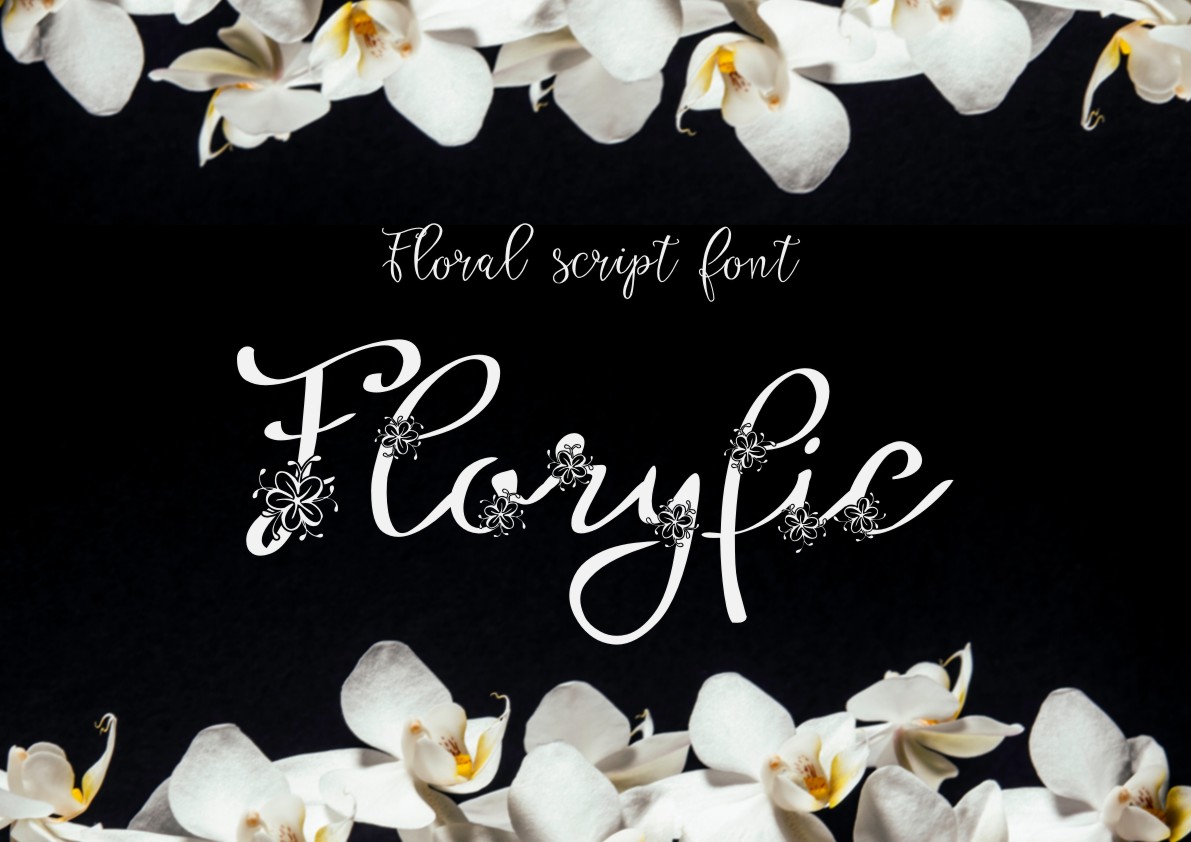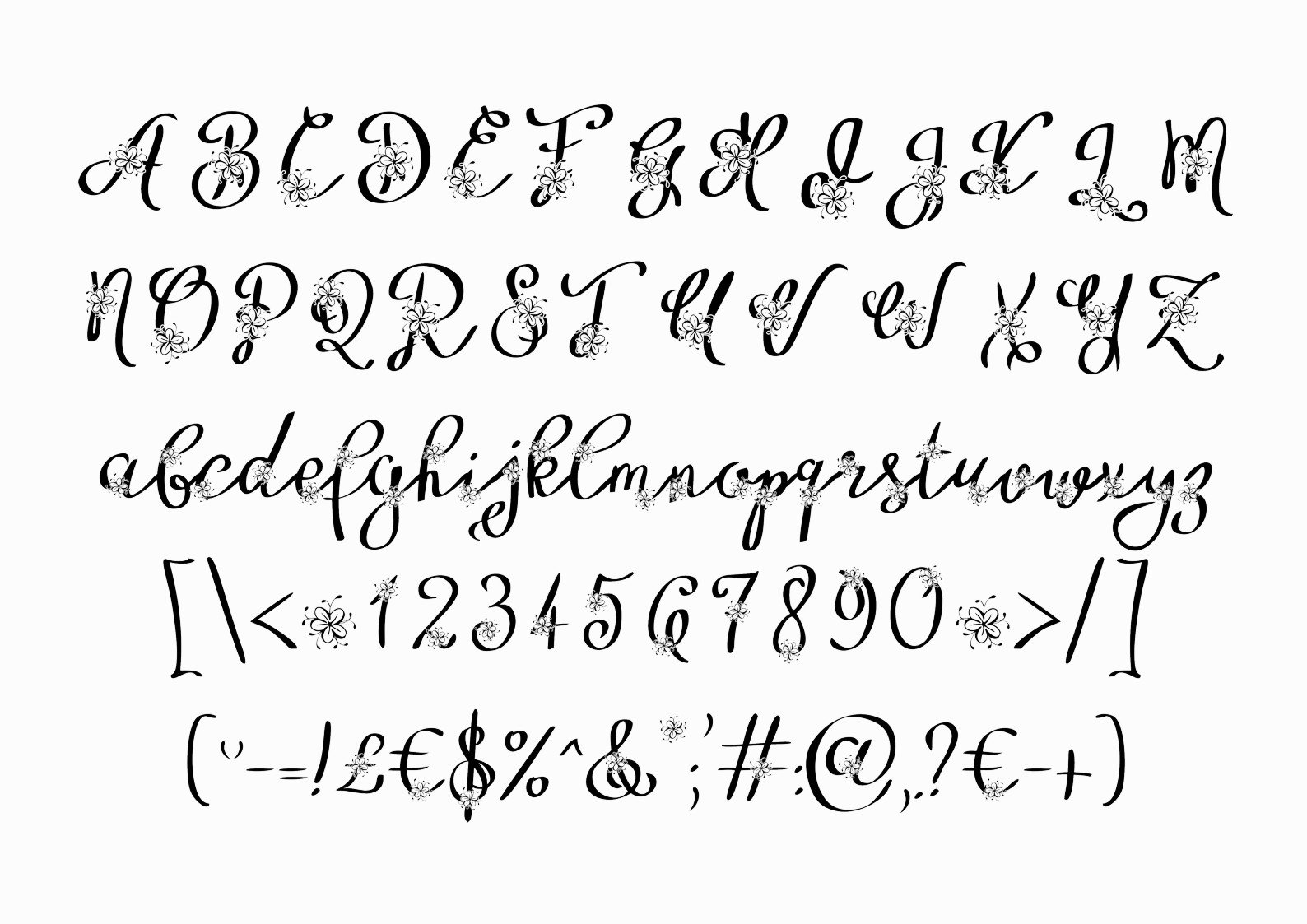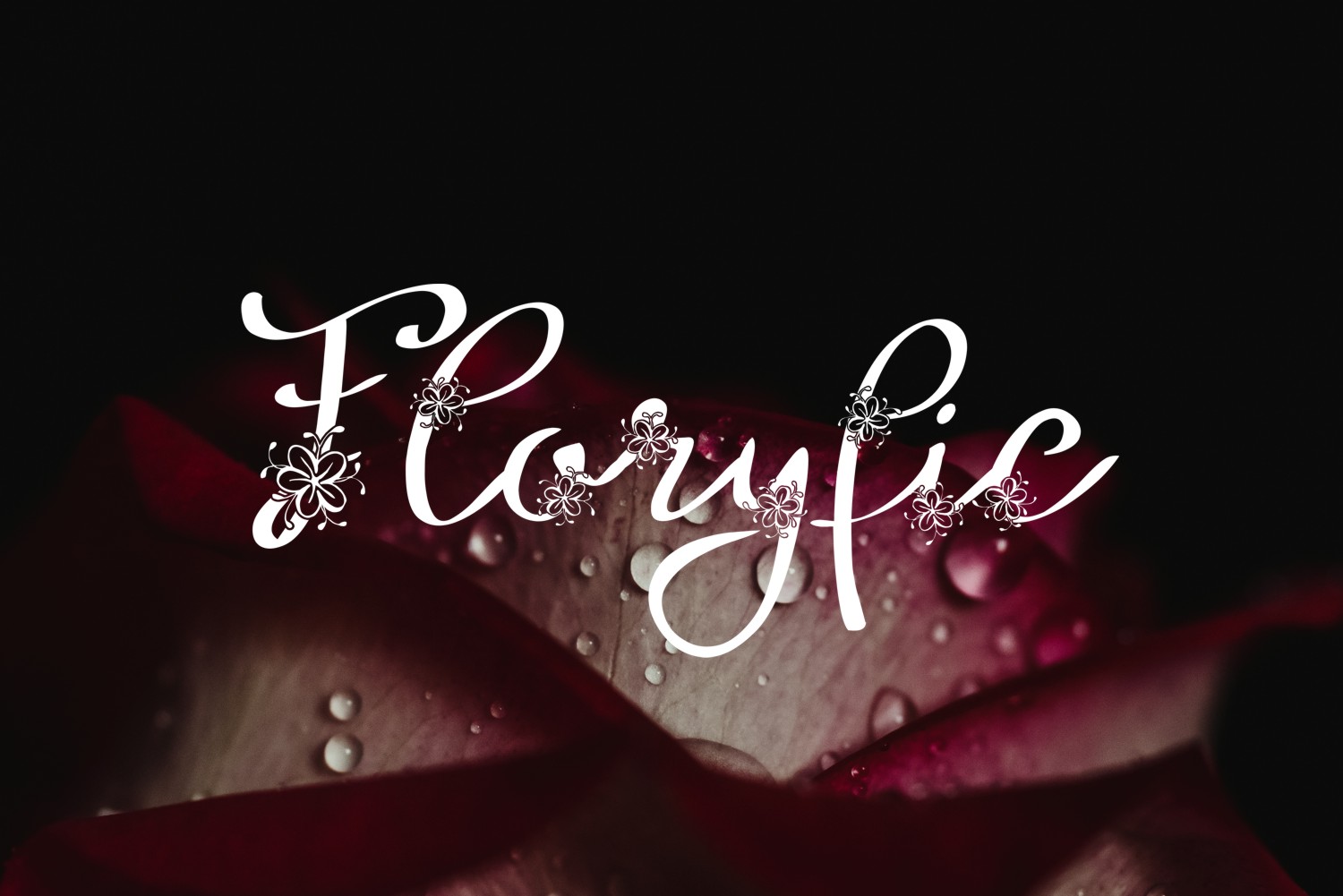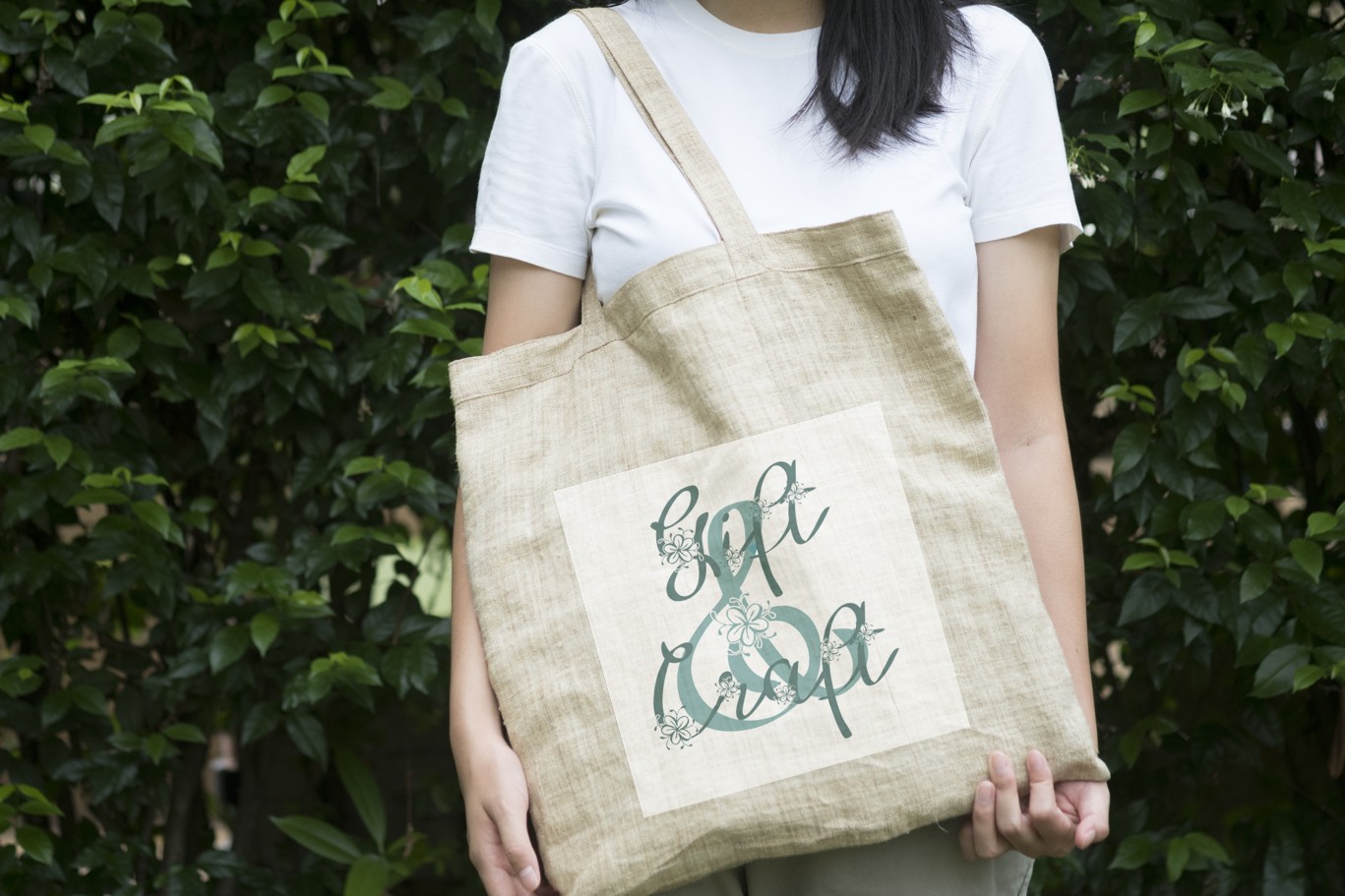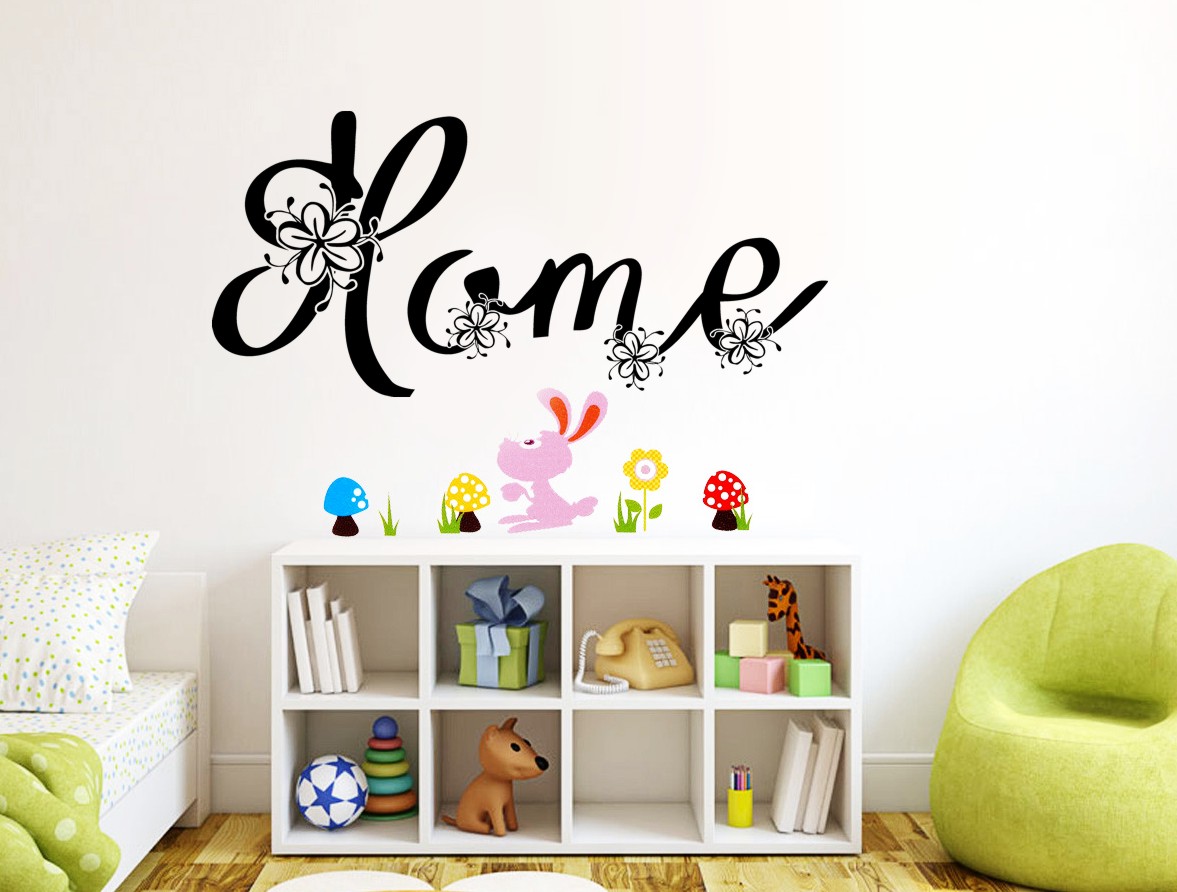
Unleashing the Whimsy of Hand-Drawn Design
As a designer, there’s nothing quite like the rush of inspiration that comes from a blank canvas. The blank page stares back at you, begging to be filled with creativity and imagination. And then, it hits you – the perfect idea, the perfect style, the perfect font. For some, it’s a sleek sans-serif, while for others, it’s a delicate script that whispers elegance and refinement. For those who crave the latter, welcome to the enchanting world of Floryfic Font.
With its intricate floral elements and delicate curves, Floryfic Font is the perfect choice for designers seeking to add a touch of whimsy and romance to their projects. Whether it’s a wedding invitation, a branding campaign, or a blog post, this stunning script font is sure to captivate and delight. Its unique look and feel make it a valuable asset for designers looking to elevate their work and stand out from the crowd.
Floryfic Font Key Features
- Unique Characteristics: Floryfic Font features a unique blend of modern and vintage elements, with intricate details and subtle texture, giving it a distinctive look.
Review of Floryfic Font
Overall, I think Floryfic Font is a decent addition to any designer’s toolkit. It has its strengths and weaknesses, which I’ll outline below.
- The font is highly customizable, with a wide range of font weights and styles to choose from.
- The font is highly legible, even at small font sizes.
- It’s perfect for use in digital media, such as websites and mobile apps.
- The font has a unique, elegant feel to it, making it perfect for use in high-end branding and design projects.
- The font can feel a bit too ornate for some uses, making it difficult to read in certain contexts.
- The font is not as versatile as some other fonts, and may not be suitable for use in certain types of projects.
- The font can be a bit difficult to pair with other fonts, as its unique style may clash with other designs.
Overall, I think Floryfic Font is a solid choice for designers who need a high-end, customizable font. While it has its limitations, it’s a great option for those who want a unique and elegant look for their projects.
Getting the Most Out of Floryfic Font
To get the most out of Floryfic Font, try the following:
- Experiment with different font sizes and styles to create visual interest.
- Use Floryfic Font in combination with other fonts to create a unique typography style.
- Take advantage of the font’s versatility by using it for a variety of design elements, such as headings, body text, and titles.
Floryfic Font is ideal for:
- Designing creative and playful graphics.
- Creating eye-catching headings and titles.
Alternatives to Floryfic Font
Great Vibes Font is a modern, elegant script font. It is ideal for use in headings, titles, and any design where a touch of sophistication is required. Great Vibes Font is more elegant and refined compared to Floryfic Font, which has a more playful and whimsical feel.
Carolyna Pro Font is a highly customizable, elegant script font. It is suitable for use in high-end branding, advertising, and editorial design. Carolyna Pro Font is more versatile and customizable compared to Floryfic Font, which has a more limited range of styles and variations.
Carolyna Pro Font’s counterpart is Carolyna Pro’s sibling which is called Carolyna Pro’s sister font, “Alex Brush Font”